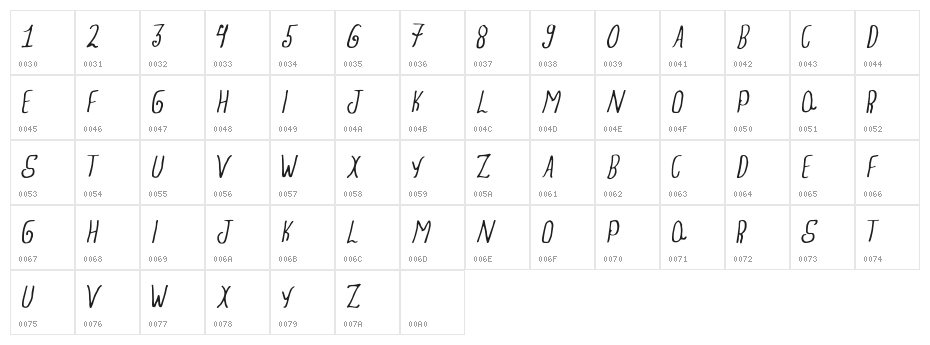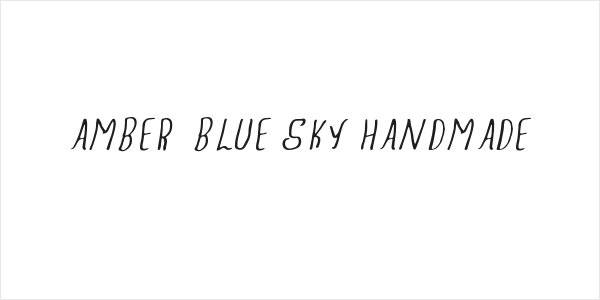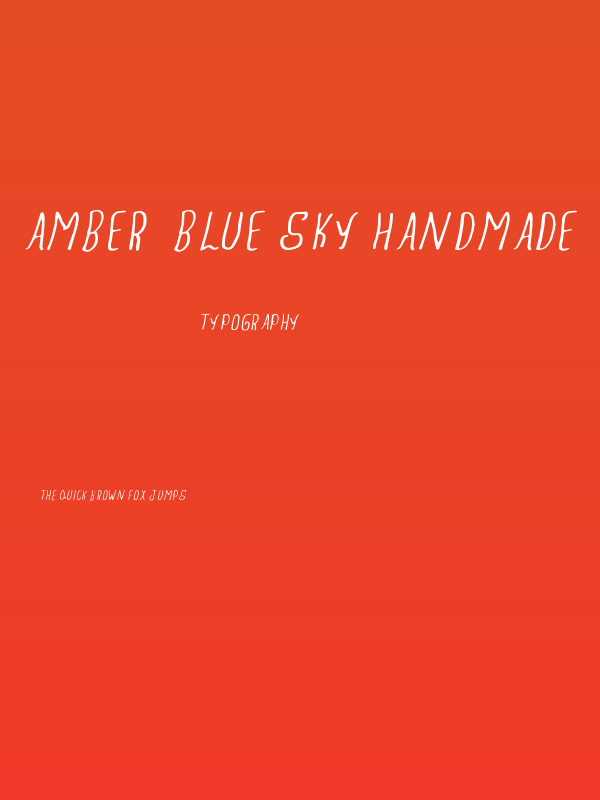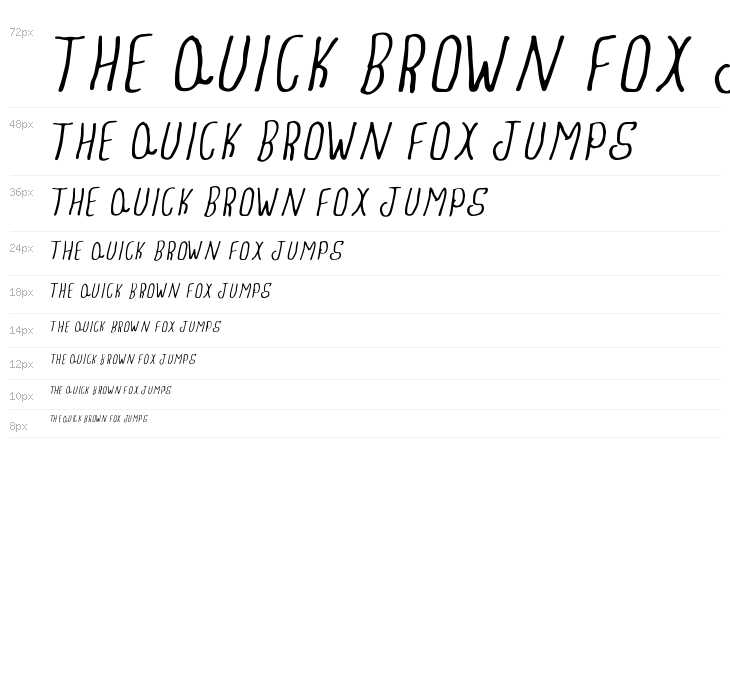
Amber Blue Sky Handmade Font
Amber Blue Sky Handmade Description
This font features a charming, handwritten style with a playful and casual appearance. The letters are slightly slanted, giving it a dynamic and lively feel. Each character is uniquely crafted, showcasing subtle variations that add to its handmade aesthetic. The strokes are consistent in width, providing a uniform look while maintaining a sense of individuality. The font includes both uppercase and lowercase letters, numerals, and a selection of special characters, making it versatile for various design needs. Its organic flow and informal style make it perfect for projects that require a personal touch.
| Proposed Projects | Ideal for greeting cards, invitations, personal branding, and creative projects that require a personal touch. |